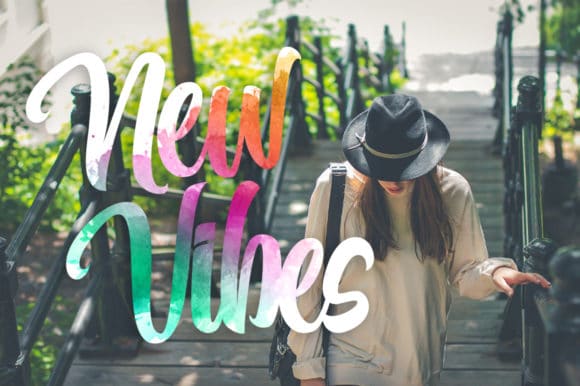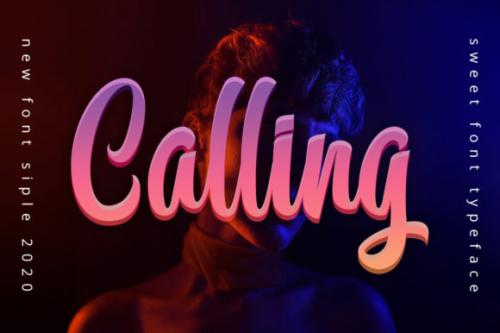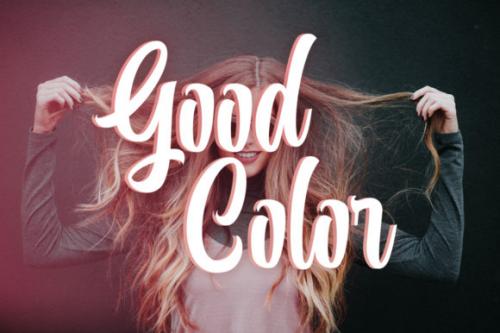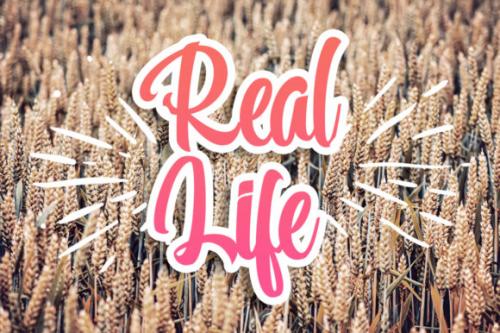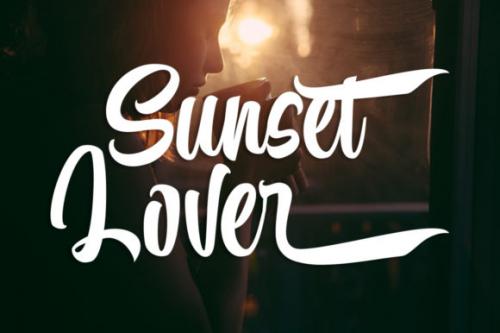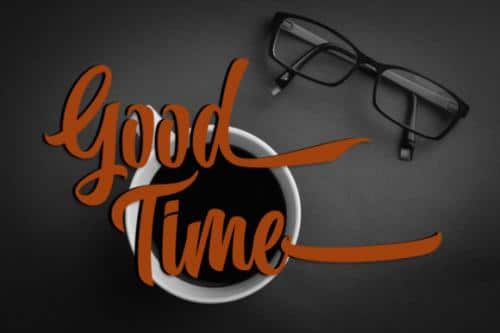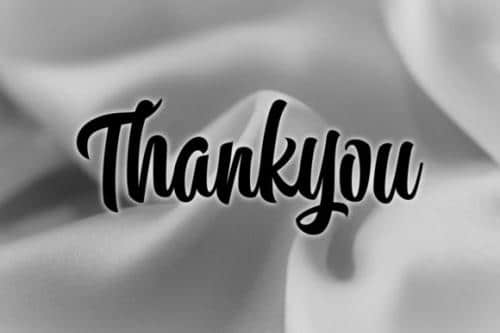
Calling is a delicate, elegant and flowing handwritten font. It has beautiful and well balanced characters and as a result, it matches a wide pool of designs. Add it to your most creative ideas and notice how it makes them come alive!
Calling Font is suitable for various purposes: logos, wedding invitations, titles, signatures, t-shirts, letterheads, signboards, labels, posters etc.
- Designer: Rahmatillah